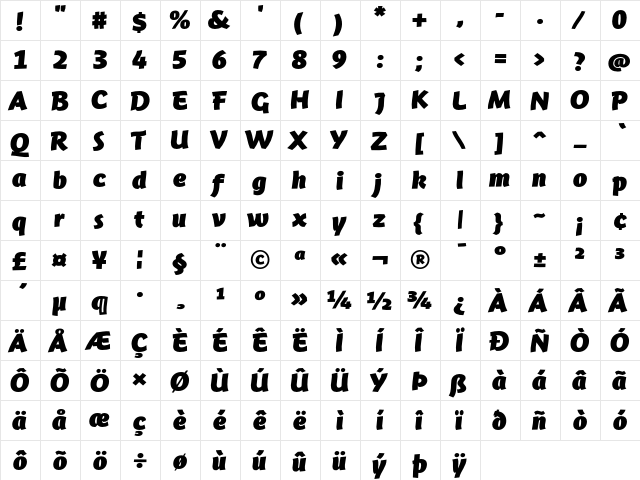
JambonoTF-Black Regular
Design Context for JambonoTF-Black Typeface
JambonoTF-Black is a composed and adaptable typeface that performs quietly and consistently across a wide range of design contexts.